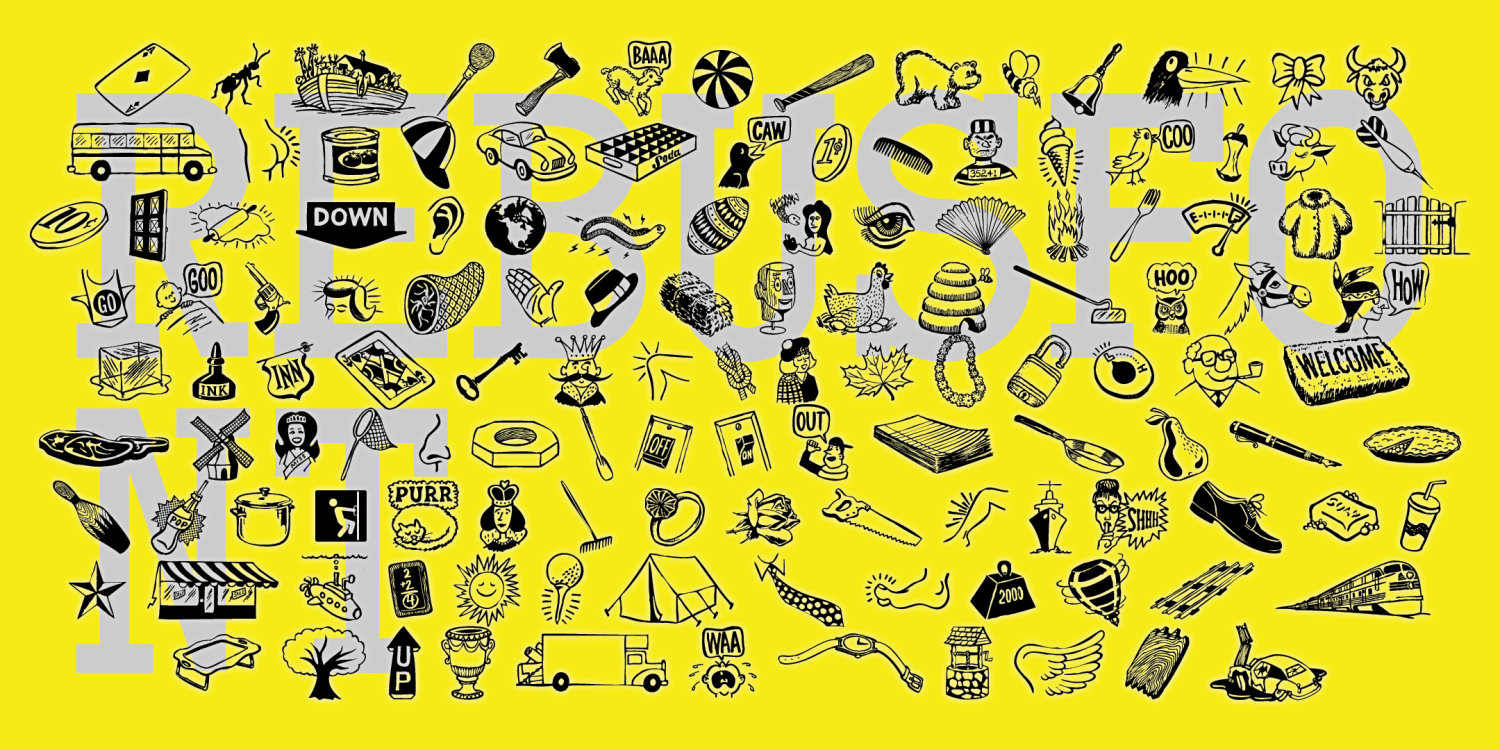
Rebus Font
REBUS FONT is a special sort of dingbat font, containing pictures that can be combined to make rebuses. A rebus, of course, is a puzzle that uses images (and a few letters when needed) as building blocks to make words and messages.
The idea is as ancient as hieroglyphics, but my font was inspired by the old TV game show "Concentration" and the Milton-Bradley home version. Using two undated (60s?) editions of the game, I selected 100 high-frequency and useful images and drew additional ones.
Use it as any other dingbat font or to create your own rebuses. Mix and match with other dingbat fonts and fun text fonts as needed.
This OpenType version of Rebus Font allows you to easily access any of the 130 images by simply typing its name. Easily accessed for use as clip art or to make custom rebus puzzles. In applications that support OpenType features, enable "discretionary ligatures." Rebus Font has now been combined with Don Semiformal, allowing you to seamlessly combine text and images.